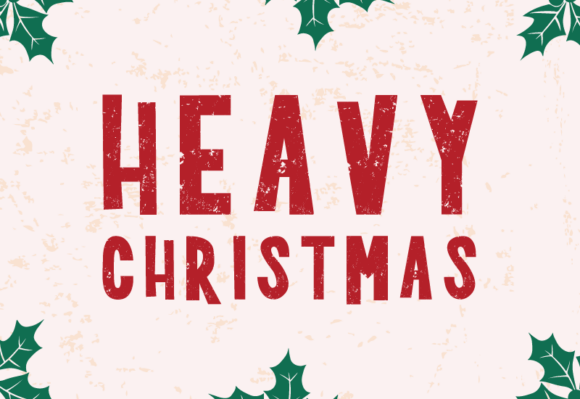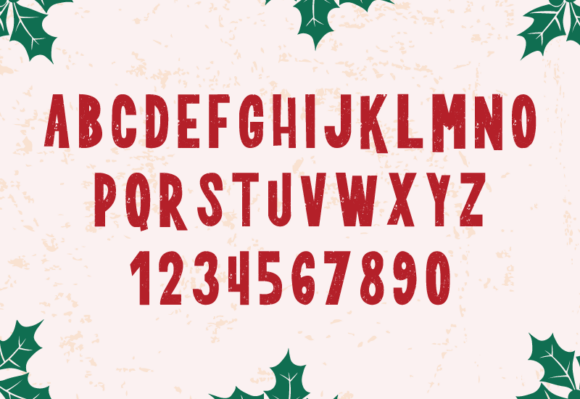
Unleash the Spirit of Yule with Heavy Christmas Font: A Grunge Typography Masterpiece
Step into the bold, eerie realm of typography with Heavy Christmas, a uniquely crafted font designed to inject a sense of chilling grunge ambiance into your designs. This font is distinctly marked by its subtle brush stroke effects, exuding an undeniable rawness and minimalist aesthetics that will leave your guests enthralled. Whether you’re a designer, crafter, or simply someone who loves the festive spirit, Heavy Christmas is the perfect addition to your typography collection.
The Power of Grunge Typography
Grunge typography has become increasingly popular in recent years, and for good reason. This style of typography adds a touch of edginess and rawness to any design, making it perfect for those who want to stand out from the crowd. Heavy Christmas takes this style to the next level, with its bold, chunky letters and subtle brush stroke effects that give it a truly unique look.
Perfect for Christmas Projects
As the holiday season approaches, designers and crafters are on the lookout for fonts that can help them create festive and eye-catching projects. Heavy Christmas is the perfect solution, with its grunge-inspired design that screams Christmas. Use it to create striking headers, captivating postcards, and compelling posters that will command attention. Whether you’re designing invitations, decorations, or gift tags, Heavy Christmas is the perfect font to add a touch of festive grunge to your projects.
One of the best things about Heavy Christmas is its versatility. This font can be used in a wide range of design projects, from digital to print. Here are just a few ideas to get you started:
• Invitations: Use Heavy Christmas to create bold and eye-catching invitations that will set the tone for your Christmas party or event.
• Postcards: Create articulate postcards that will captivate viewers and leave a lasting impression.
• Posters: Command attention with compelling posters that feature Heavy Christmas as the main font.
• Headers: Crystallize the intensity of your Christmas events with striking headers that showcase the power of Heavy Christmas.
Why Choose Heavy Christmas?
So why choose Heavy Christmas over other fonts? Here are just a few reasons:
• Unique Design: Heavy Christmas has a truly unique design that will set your projects apart from the crowd.
• Easy to Use: This font is easy to use and can be seamlessly integrated into your design projects.
• Versatile: Heavy Christmas can be used in a wide range of design projects, from digital to print.
• Festive Spirit: This font embodies the spirit of Yule, making it perfect for Christmas projects and designs.
Unleash Your Creativity
Heavy Christmas is more than just a font – it’s a way to unleash your creativity and add a touch of grunge to your designs. With its bold, chunky letters and subtle brush stroke effects, this font is sure to inspire you to create something truly unique and eye-catching. So why wait? Download Heavy Christmas today and start creating your own festive grunge masterpieces.
In conclusion, Heavy Christmas is a must-have font for designers and crafters who want to add a touch of grunge to their Christmas projects. With its unique design, versatility, and ease of use, this font is sure to become a staple in your typography collection. So don’t miss out on the opportunity to unleash your creativity and foster the spirit of Yule with Heavy Christmas. Download it today and start creating!